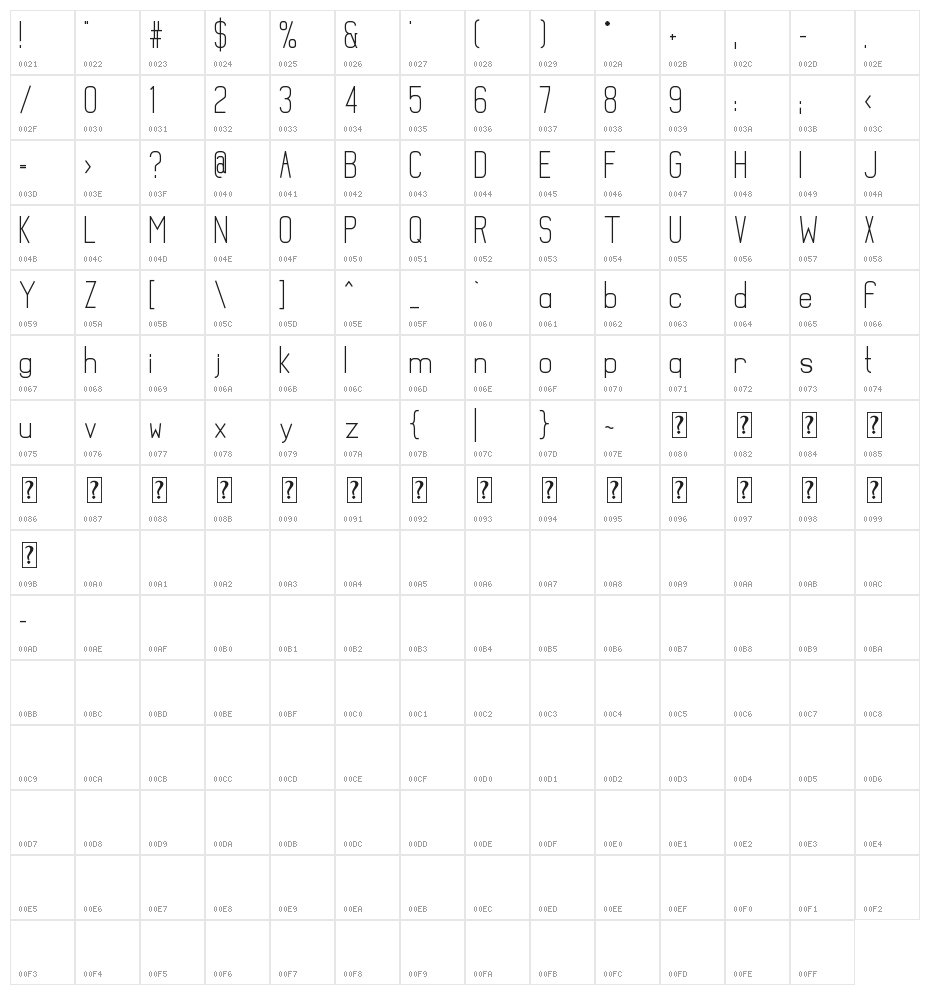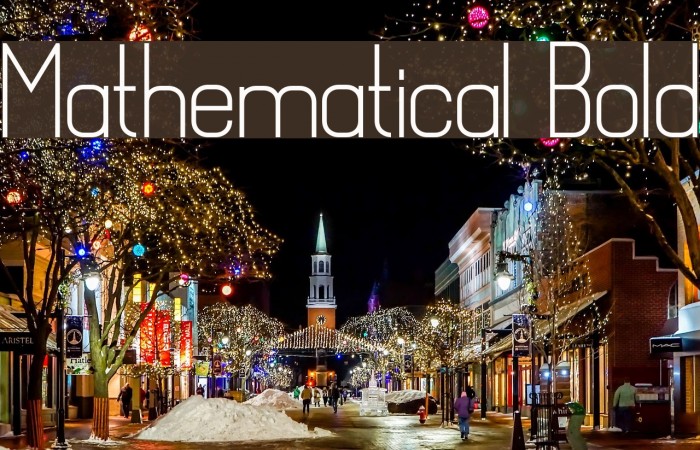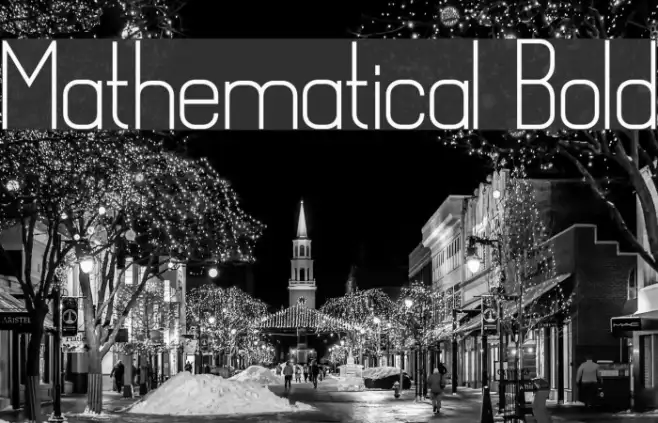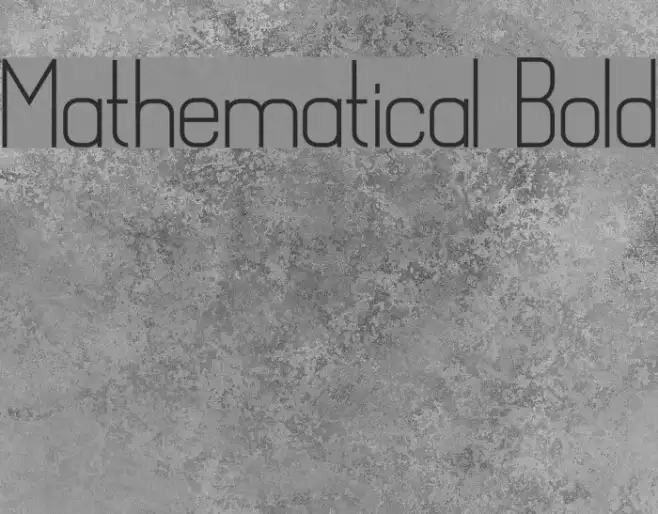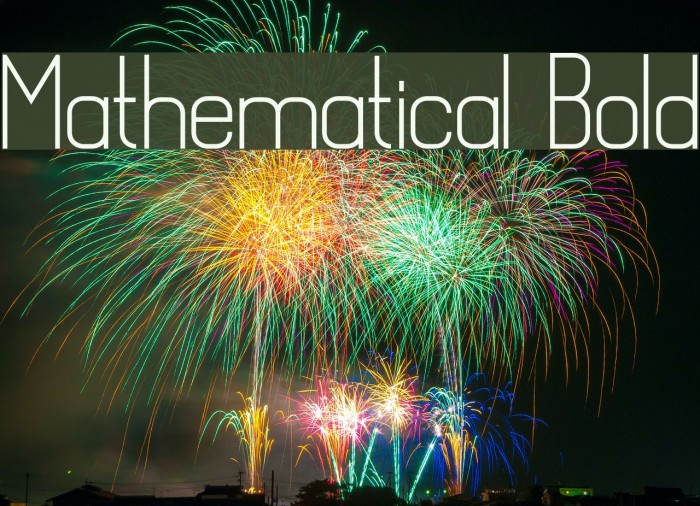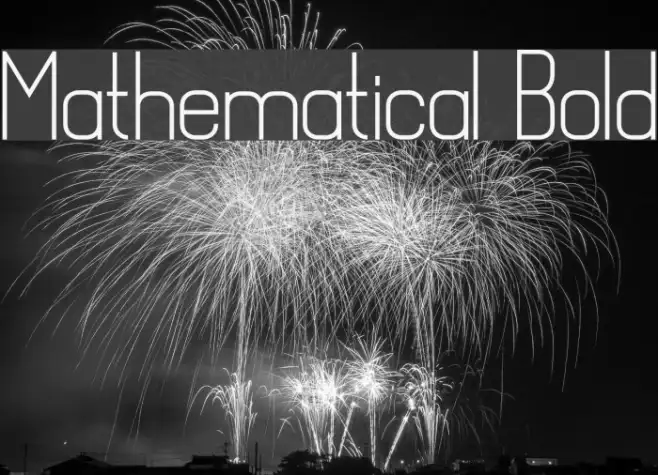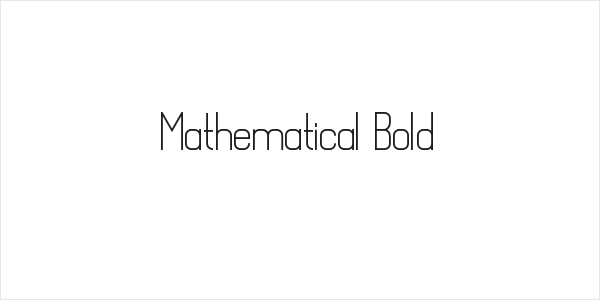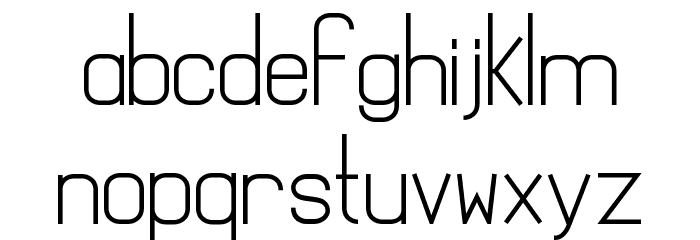
Mathematical Bold Font
Mathematical Bold Description
This font features a geometric and modern design with clean, straight lines and a uniform stroke width. The characters are tall and narrow, giving it a sleek and contemporary appearance. Uppercase and lowercase letters maintain a consistent style, with rounded edges that soften the overall look. The numerals are clear and easy to read, matching the style of the alphabetic characters. Special characters are included, maintaining the same geometric and minimalist design. This font is suitable for projects that require a modern and professional touch.